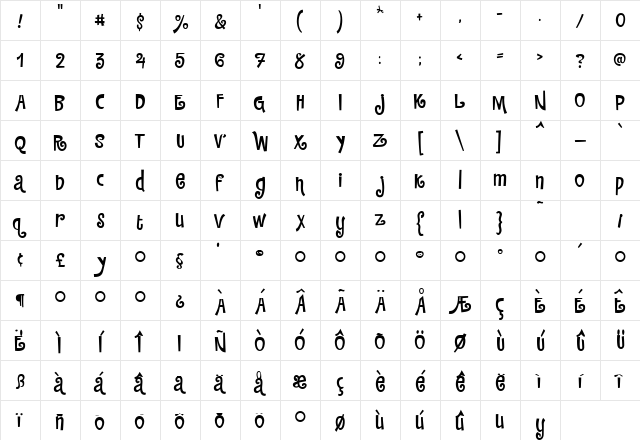
Complete Countryhouse Medium glyph index. Displaying only characters natively supported by Countryhouse Medium font.
Countryhouse is a composed and adaptable typeface that performs quietly and consistently across a wide range of design contexts.